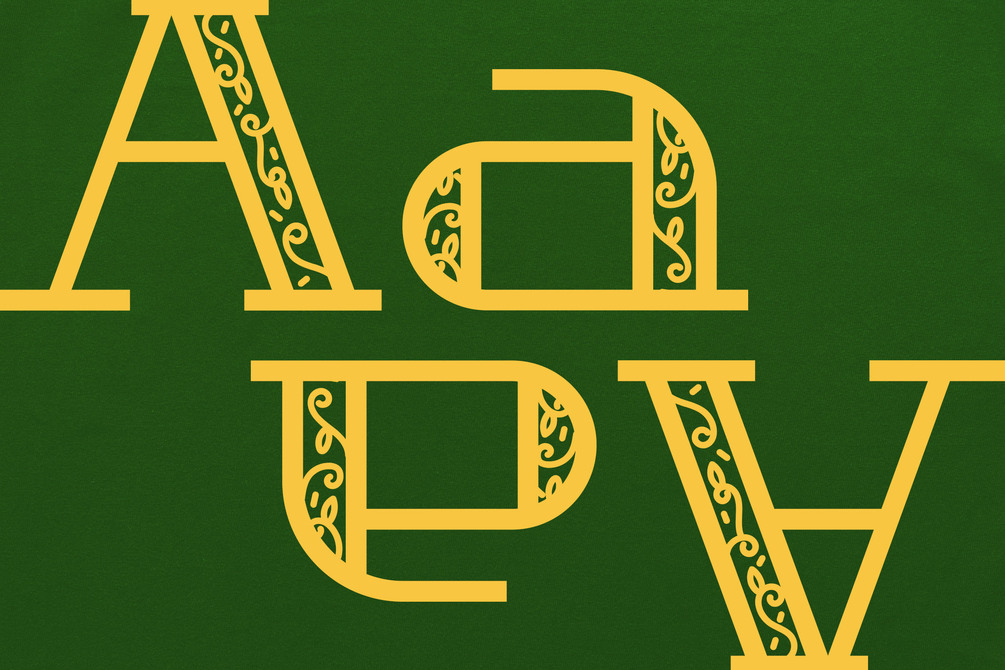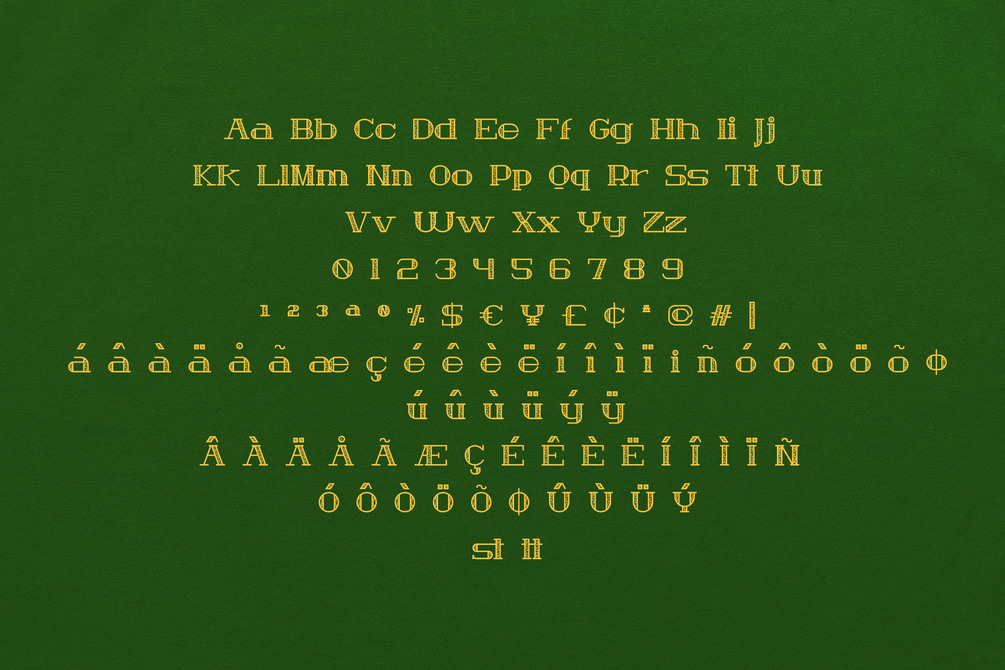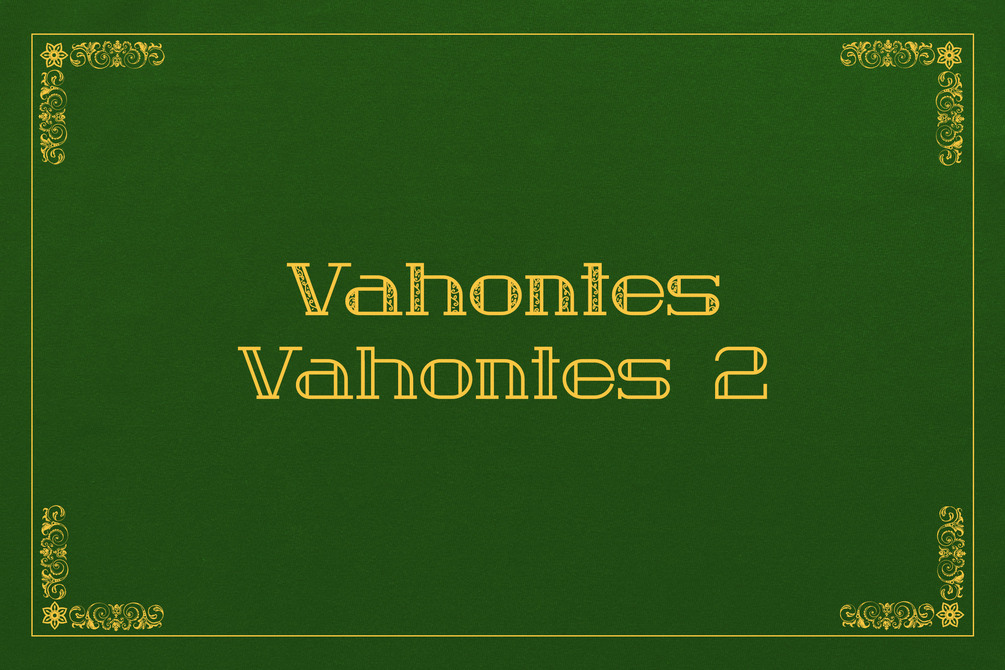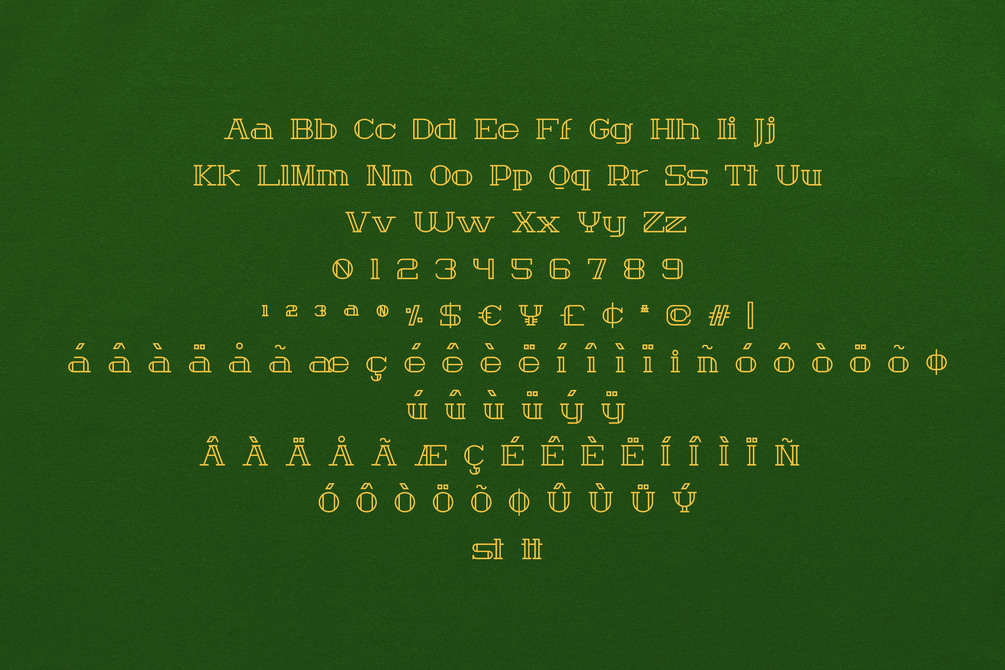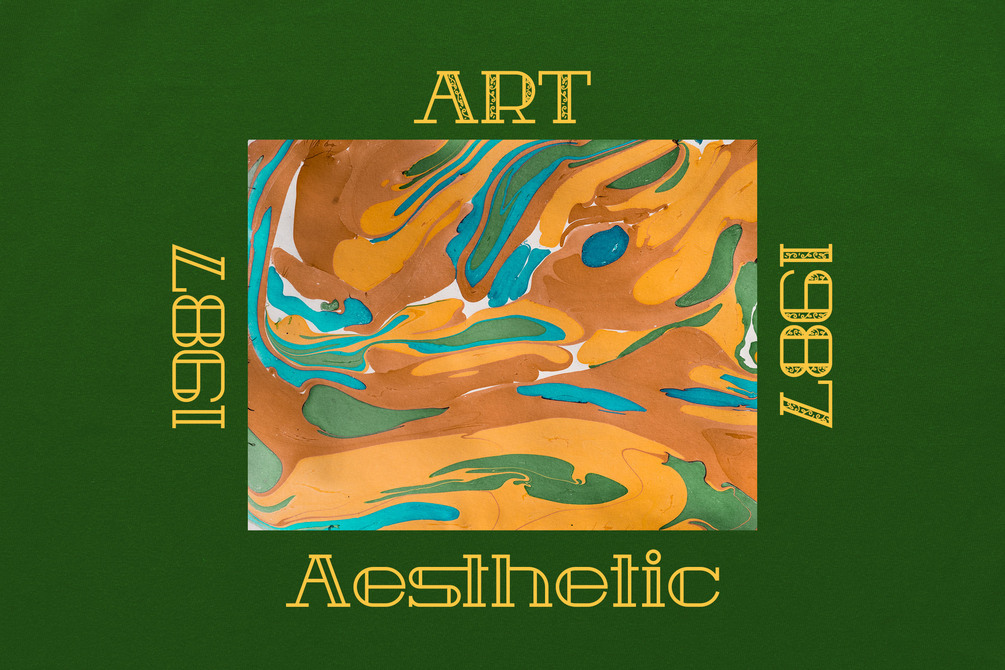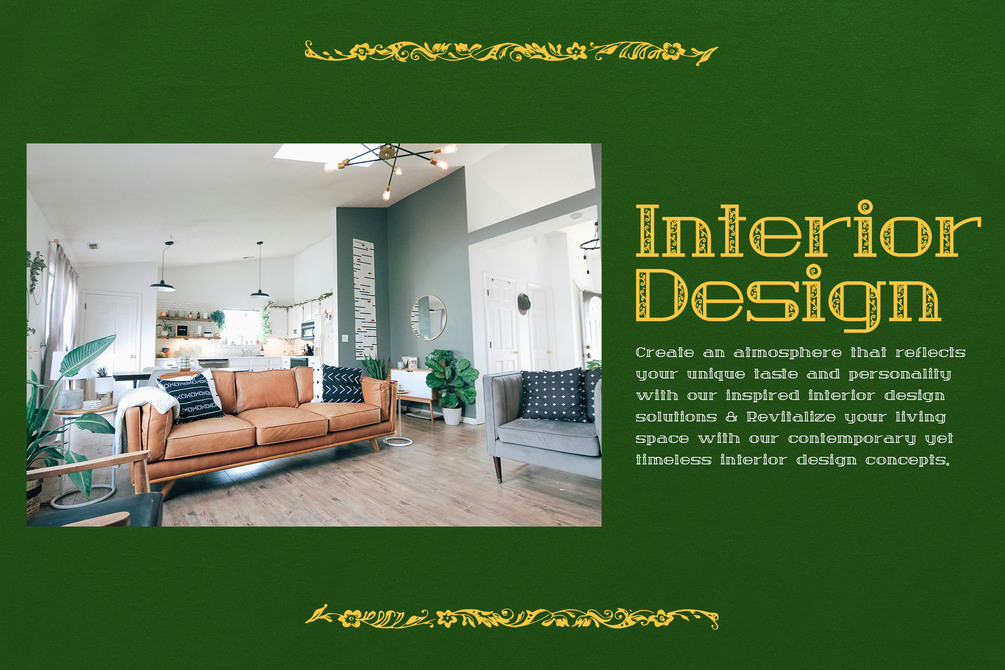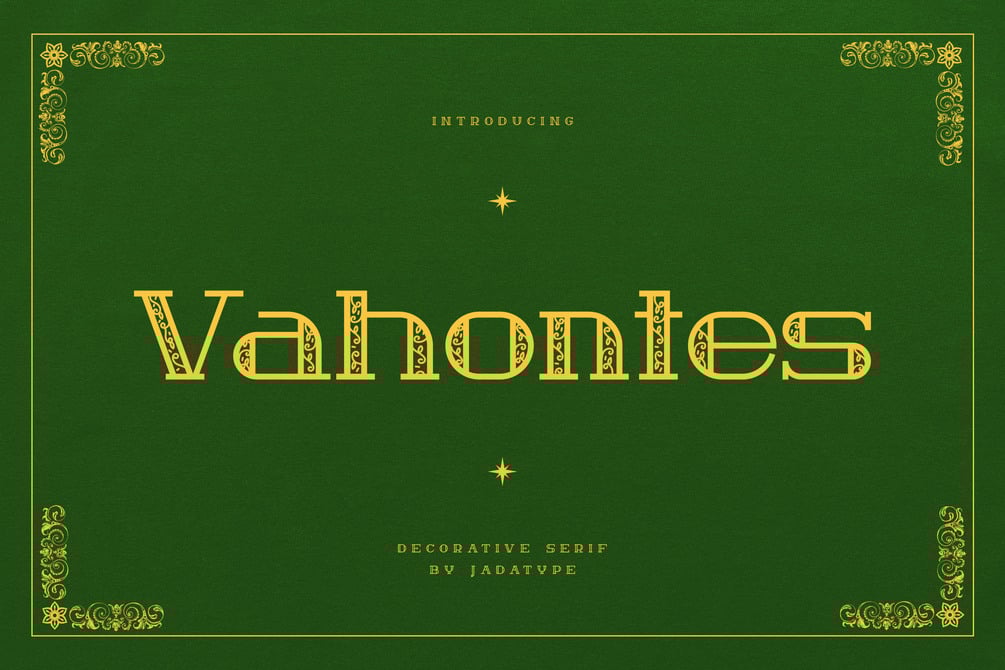
Vahontes Font
Vahontes is an elegant serif font that comes with a decorative style. suitable for product, Branding, social media, logotype and so on. contains standard English letters, numbers, punctuation, and several accents that support multilingualism.